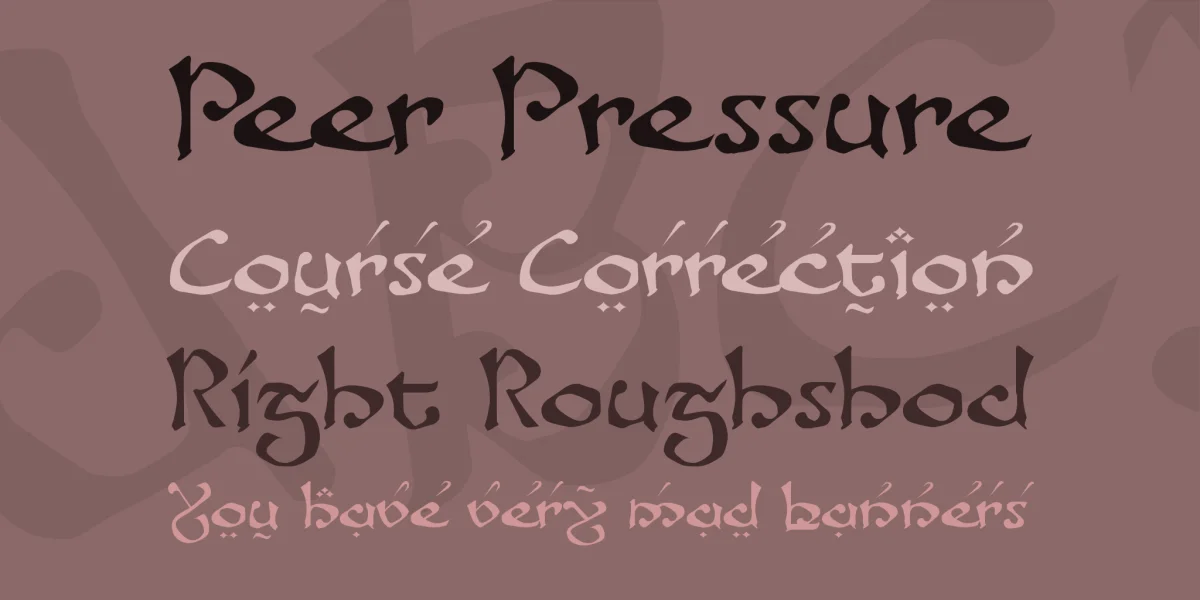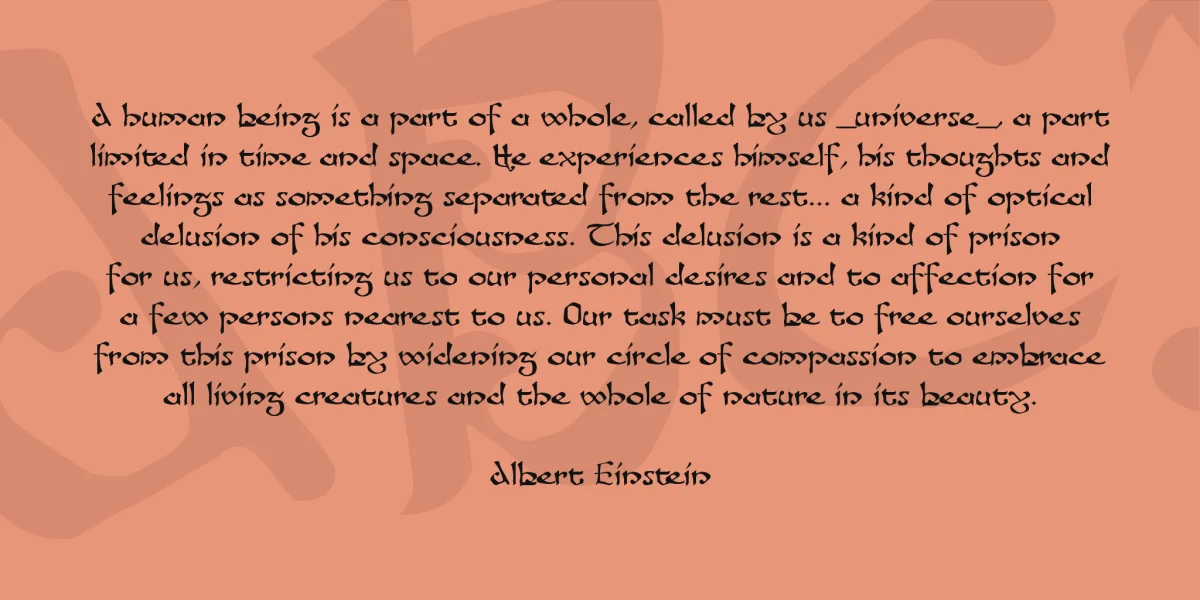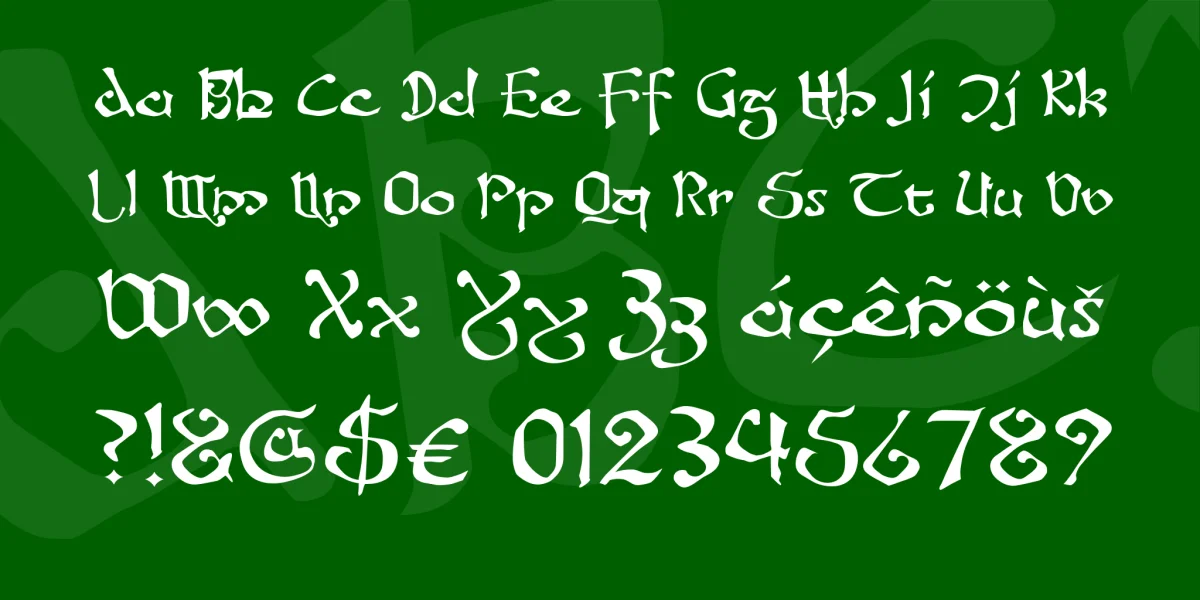
This typeface is for all fans of "Lord of the Rings", the literary classic by R.R. Tolkien, recently popular through the LOTR and Hobbit trilogies.For his fictional world "Middle Earth" Tolkien designed the "Tengwar" alphabet. Supposedly the writing of the Elves, Tolkien also used it to write the languages (invented by himself) of other races in Middle Earth.Fanjofey is a latin alphabet - using many traits of the Tengwar letters, thus giving your texts a "Lord-of-the-Rings" look and feel. Some of the vowel signs above and below the letters are added in this companion typeface "Fanjofey Leoda", enhancing the "Elvish" feeling.